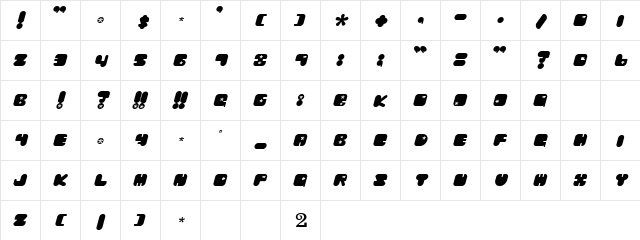
Lovedoll Salon Mono Oblique Regular
Design Context for Lovedoll Salon Mono Oblique Typeface
Lovedoll Salon Mono Oblique brings the precise, column-aligned rhythm of monospaced typography to designs that value technical clarity and systematic order. The dynamic lean of this cut emphasises speed and emphasis in any layout.